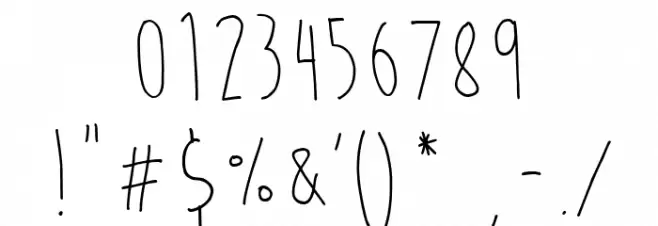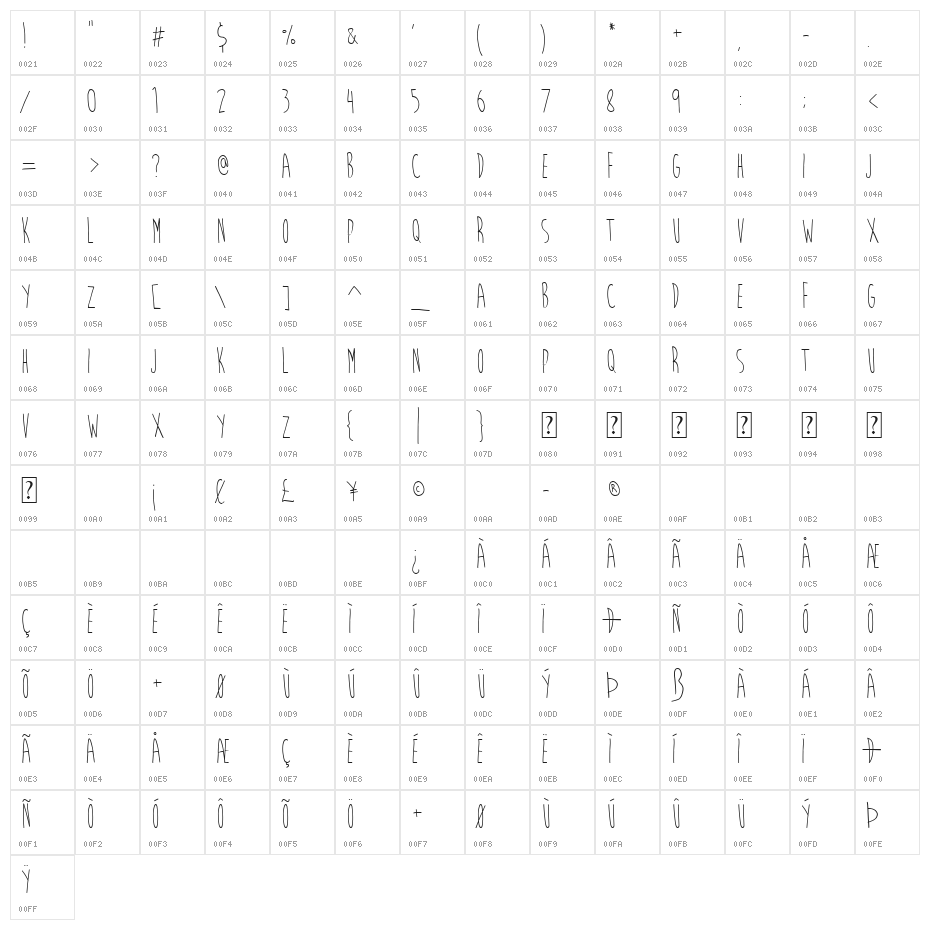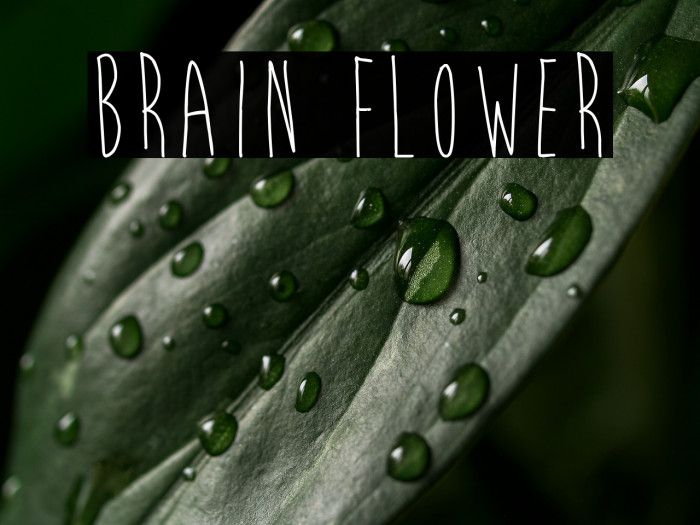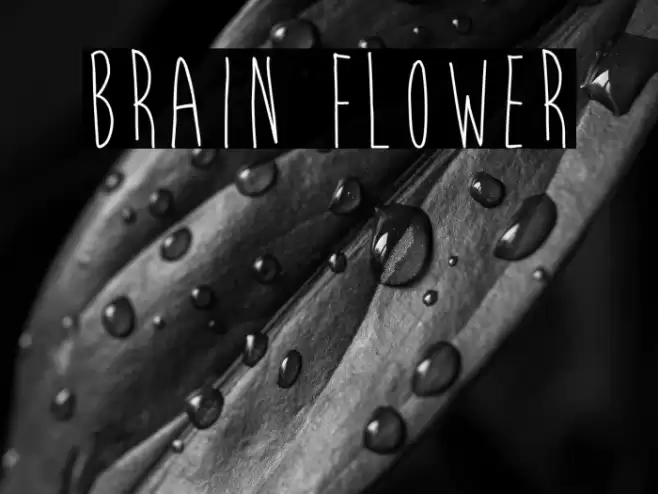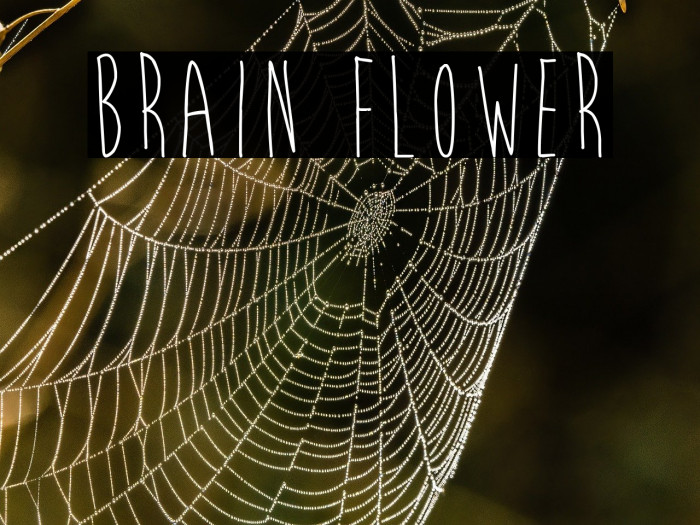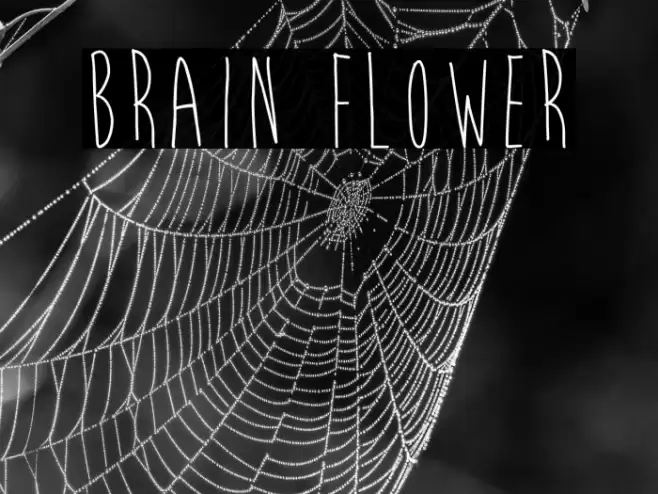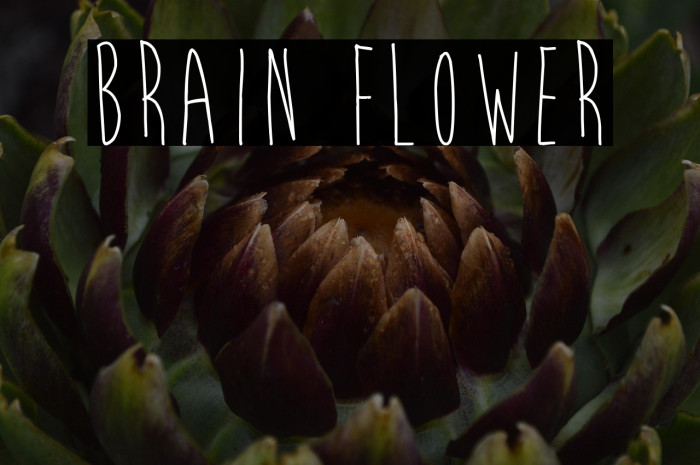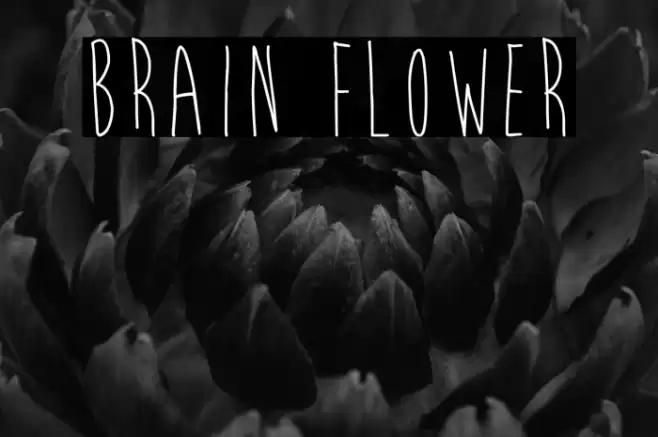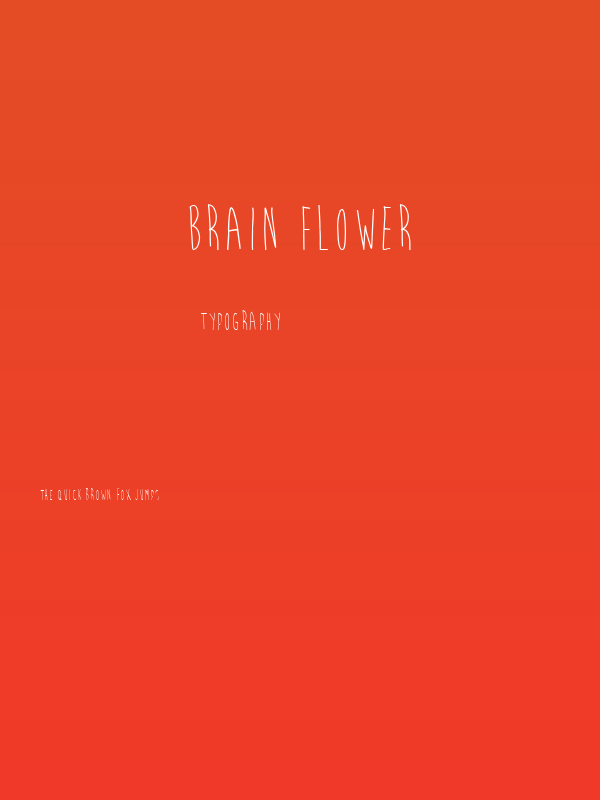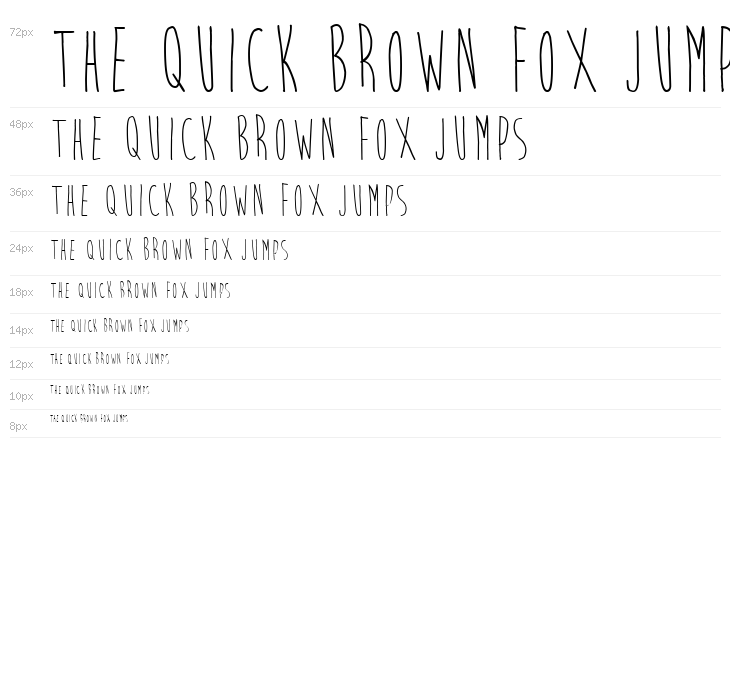
Brain Flower Font
Brain Flower Description
This font features a playful and whimsical handwritten style with tall, narrow characters. The strokes are uneven, adding a casual and informal touch. The uppercase and lowercase letters maintain a consistent height, creating a uniform appearance. The numbers are similarly styled, with a quirky and approachable feel. Special characters are included, matching the overall aesthetic with their slender and slightly irregular lines. This font is perfect for projects that require a personal and friendly tone.
| Proposed Projects | Ideal for greeting cards, children's books, casual branding, and creative posters. |